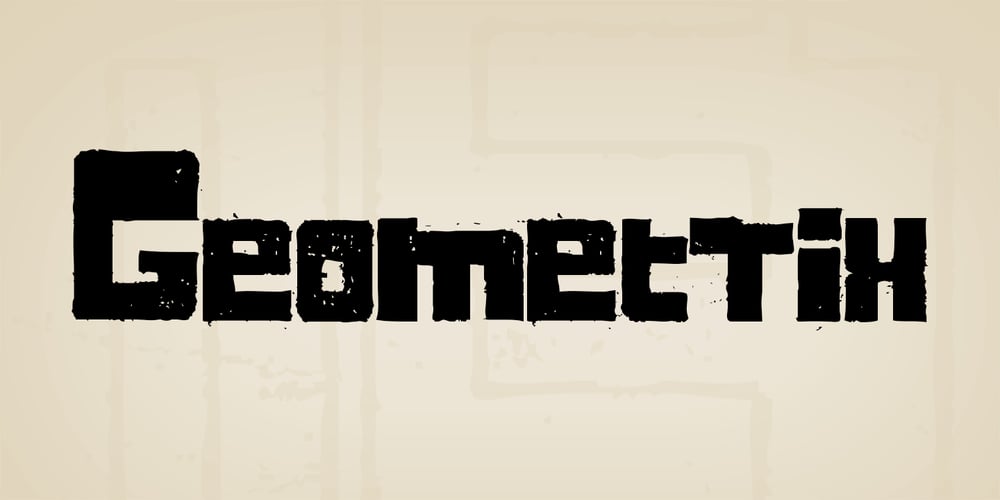
Geometrix Font Family was designed by Domenico Mazza and published by d[esign]. Geometrix contains 2 styles and family package options. The handprinted Geometrix font family is an alternative to the usual distressed typeface. Rather than drawing on a sans-serif style and tearing it to shreds, Geometrix provides an intresting and compelling set of shapes which ties into a nice worn effect. The Geometrix font family consists of two fonts; Geometrix and Geometrix Nero. Geometrix and Geometrix Nero can be used together to create a fill for Geometrix’s letters, by layering Geometrix above a differently coloured Geometrix Nero in your image editor of choice.